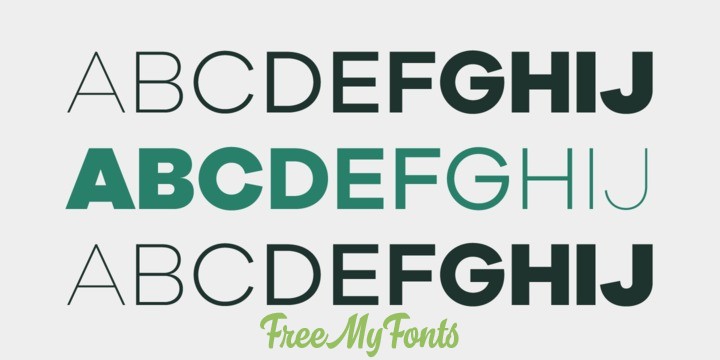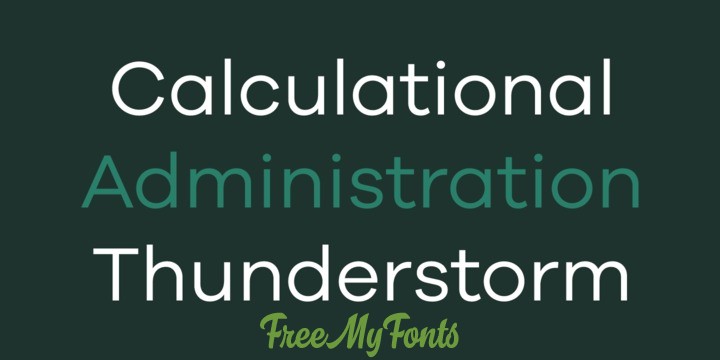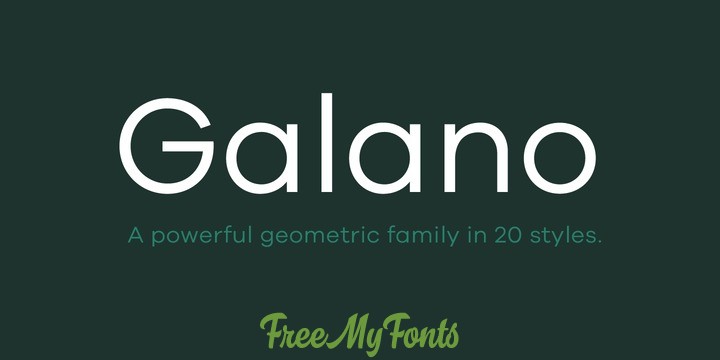
About this font family
Galano Grotesque is a geometric sans in the tradition of Futura, Avant Garde, Avenir and the like. It has a modern streak which is the result of a harmonization of width and height especially in the lowercase letters to support legibility. Galano Grotesque aims to be a universal weapon not only because it works great in headlines, short and long copies but also because of its subtle neutrality. It comes in 10 different weights with matching italics and is equipped with a set of powerful opentype features including alternative glyphs, fraction, arrows, ligatures and many more. An extended character set, supporting Central, Western and Eastern European languages, rounds up the family. More…
During the design process of the alternative glyph shapes of Galano Grotesque, the interest of creating a standalone version emerged rapidly. This was the birth of Galano Grotesque Alt. Not only because of the legible and unique character created by the alternatives, but also because this could be the small copy embracing stylistic companion to Galano Grotesque. In addition to the alternative glyphs, the height of descender and ascender was increased, supporting structure and rhythm. When finishing Galano Grotesque Alt, it turned out to not only work great in small and long copies but also to be a great performer in headlines and short copies.
I’m proud to introduce: Galano Grotesque and Galano Grotesque Alt.